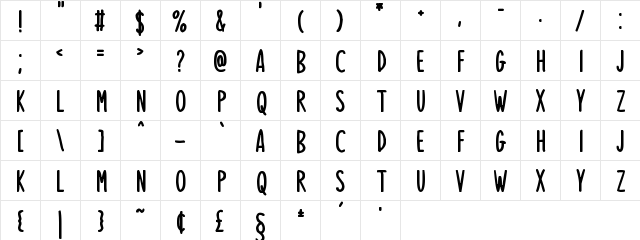
Journey Planner Regular
Design Context for Journey Planner Typeface
Journey Planner offers clean, dependable letterforms without strong stylistic allegiance, making it a practical choice for designers who need flexibility.